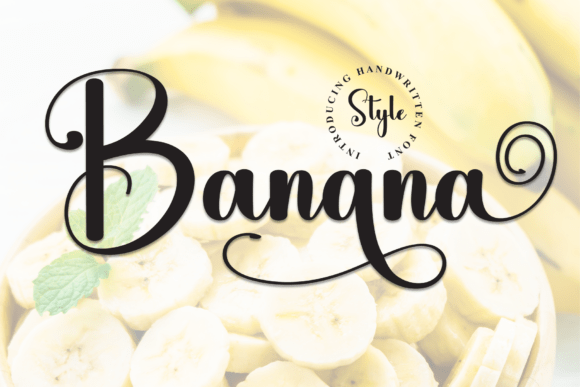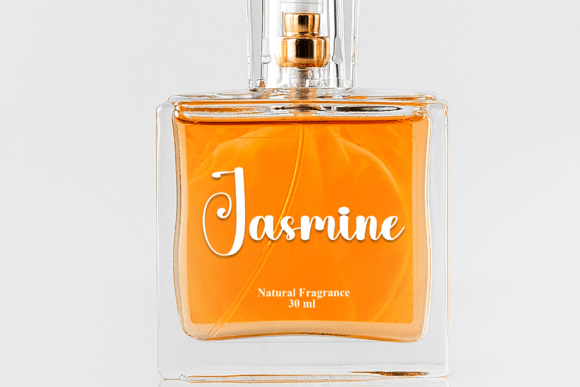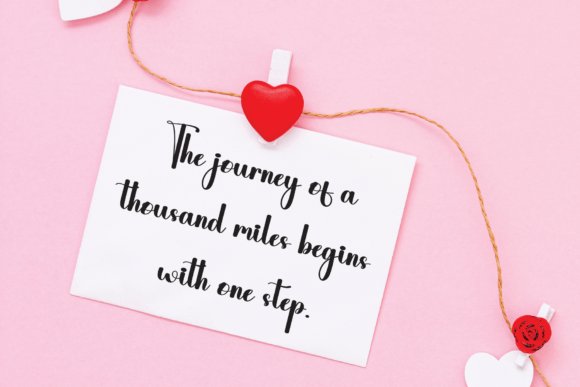
About the Banana Font
The Banana Font offers a perfect balance of form and function for your design needs. Banana is a stylish handwritten script font that blends modern elegance with a playful touch. Its fluid strokes and charming curves bring a personal feel to any design. Ideal for logos, packaging, and invitations, this typeface adds warmth, sophistication, and creativity to every project.
Banana Font’s playful yet elegant nature makes it perfect for branding projects targeting a younger demographic, particularly those in fashion, food, or beauty. It excels in short headlines, logos, and packaging where its stylish curves add visual appeal. However, its handwritten style is less suitable for body text or UI elements requiring high readability. Avoid using it for large blocks of text.
Pairing Banana Font effectively requires considering its inherent informality. A clean sans-serif like Open Sans or Lato would provide a strong contrast and improve readability in supporting text. For a more luxurious feel, consider pairing it with a classic serif like Garamond or a subtly geometric sans-serif such as Montserrat.
The overall personality is best described as friendly and approachable, yet sophisticated. Its charm stems from the balance between handwritten informality and carefully crafted elegance.